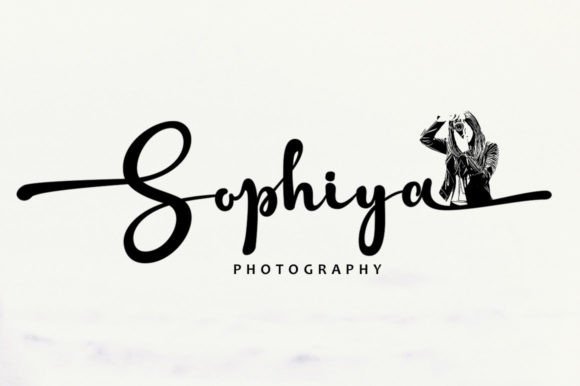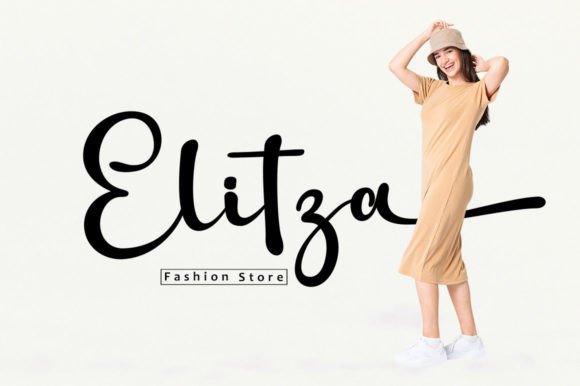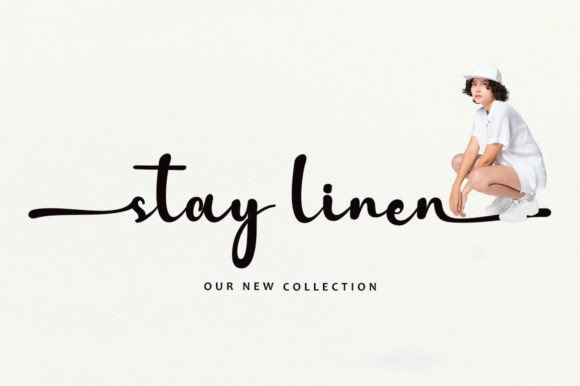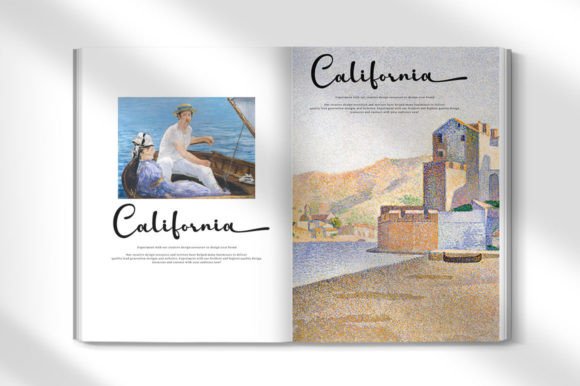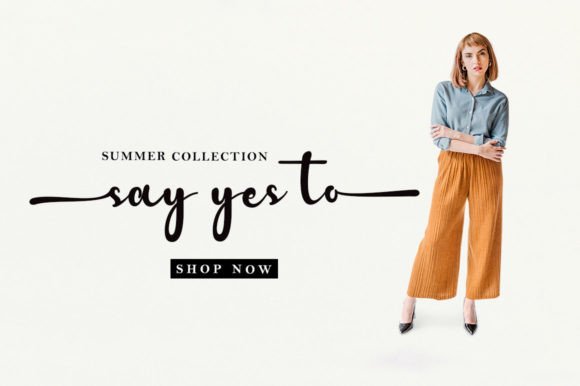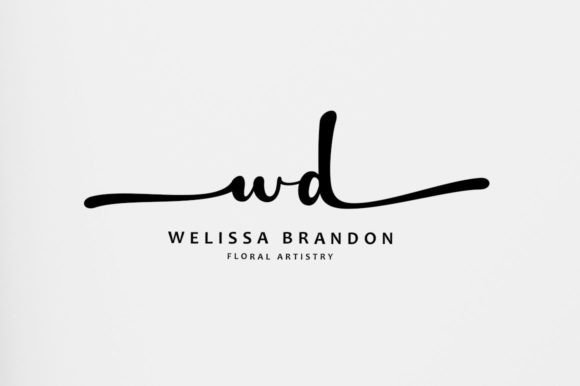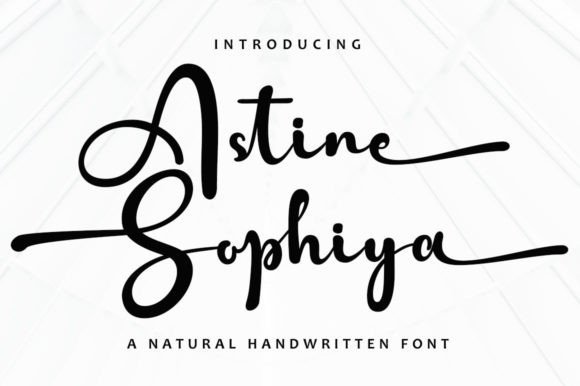
The Sweet Charm of Astine Sophiya Font
Have you ever been in the middle of a design project, and suddenly, you just can’t seem to find the right font? I recall a particularly frustrating experience while working on a wedding invitation design. My client wanted a romantic and joyful feel, but no matter how hard I searched, I just couldn’t find a font that captured that essence. That’s when I stumbled upon Astine Sophiya, a sweet and cursive handwritten script font that instantly stole my heart! 💕
A Personal Review of Astine Sophiya
As a designer, I’m always on the lookout for fonts that can add a touch of personality to my projects. Astine Sophiya has quickly become one of my go-to fonts, and here’s why:
- ✨ Sweet and Cursive: Astine Sophiya has a beautiful, flowing script that adds a touch of elegance to any design.
- ✅ Highly Versatile: This font can be used on a variety of design ideas, from wedding invitations to branding materials.
- 💕 Romantic and Joyful: Astine Sophiya has a way of adding a romantic and joyful touch to your designs, making it perfect for projects that require a personal touch.
While Astine Sophiya is an amazing font, there are a few things to keep in mind:
- 🤔 Limited Use in Small Sizes: As with many script fonts, Astine Sophiya can be a bit tricky to read in small sizes. It’s best used in larger sizes, such as headings or titles.
- ⚠️ Glyph Limitations: While Astine Sophiya has a range of glyphs and alternates, it may not have every character or symbol you need. Be sure to check the font’s capabilities before committing to a project.
The Story Behind Astine Sophiya
While the true story behind Astine Sophiya remains a mystery, it’s easy to imagine that this font was created with love and care. Perhaps the designer, inspired by the beauty of handwritten scripts, set out to create a font that would bring joy and romance to designs everywhere.
| Font Name | Astine Sophiya Font |
| Author | madjack.font |
| What is Astine Sophiya font best used for? | Astine Sophiya is best used for designs that require a romantic and joyful touch, such as wedding invitations, branding materials, and social media graphics. |
| Is Astine Sophiya a difficult font to read? | As with many script fonts, Astine Sophiya can be a bit tricky to read in small sizes. It’s best used in larger sizes, such as headings or titles. |